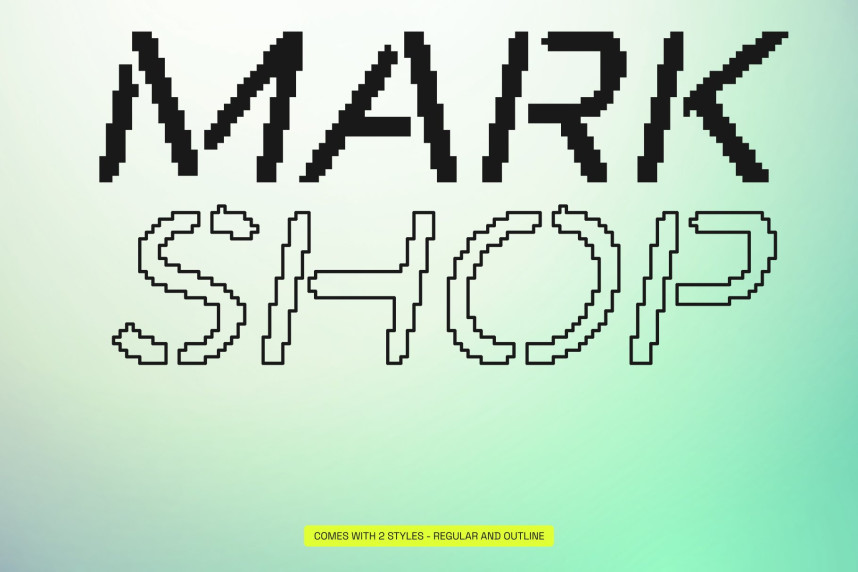
Darbots Rounded Pixel Font
Darbots Rounded Pixel Font – Modern Sans Serif Stencil Sleek Stencil Design. This is a modern sans serif stencil font that merges contemporary elegance with retro digital charm. Designed with sharp corners and a rigid, pixel-inspired structure, it evokes the nostalgia of 8-bit graphics while maintaining a sleek and professional appearance. Its stencil style offers a clean, minimalistic aesthetic, making it highly versatile for a variety of design projects.